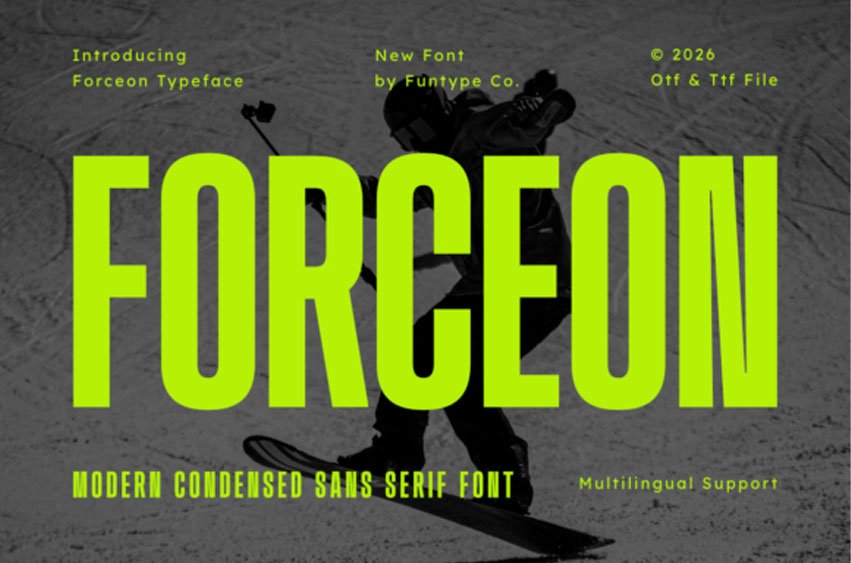
Forceon Font is a tall, robust, and beautifully stylized modern condensed sans serif font tailored for precise, high-impact branding and commercial craft design.
Showcasing a compact geometric block structure, heavy weights, and clean linear silhouettes, this typeface is exceptionally qualified for commanding headlines, aggressive urban streetwear clothing lines, athletic sports team logo designs, custom vehicle vinyl decals, activewear branding, and bold promotional posters.
Its authoritative, tall, and perfectly balanced presentation infuses screen prints, physical merchandise layouts, and custom crafting projects with an advanced, cutting-edge fashion and athletic lifestyle finish. Furnished in OTF and TTF standard formats with full multilingual support for a clean integration across all leading creative graphic design suites, cutting machine software, and fabric printing systems.